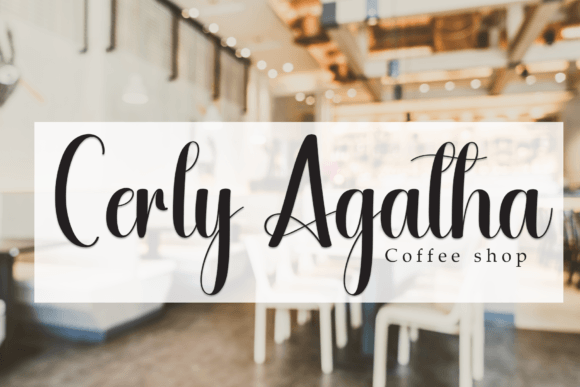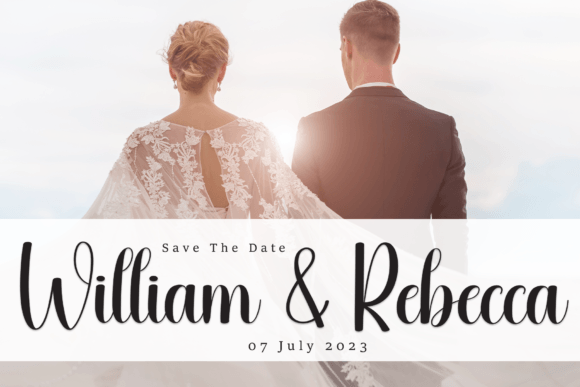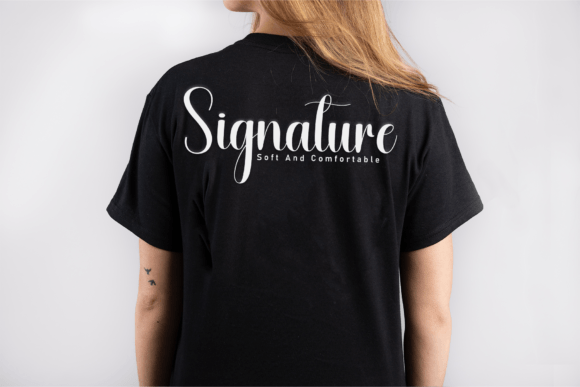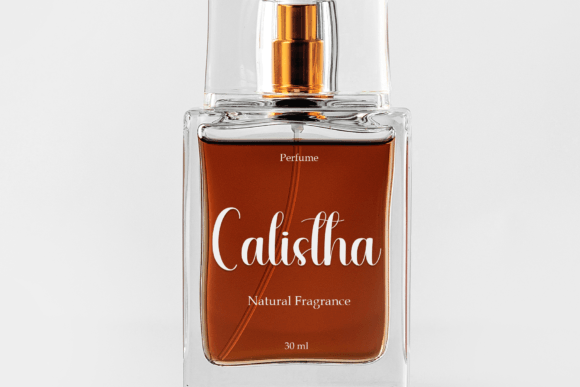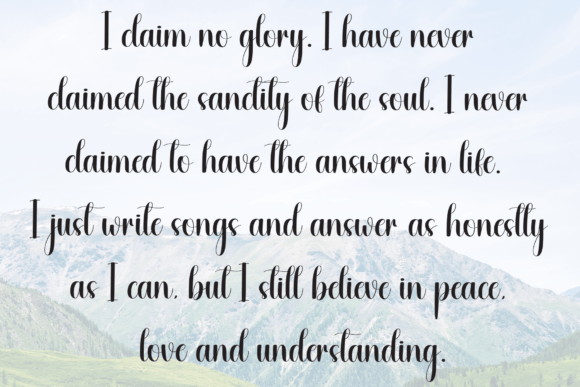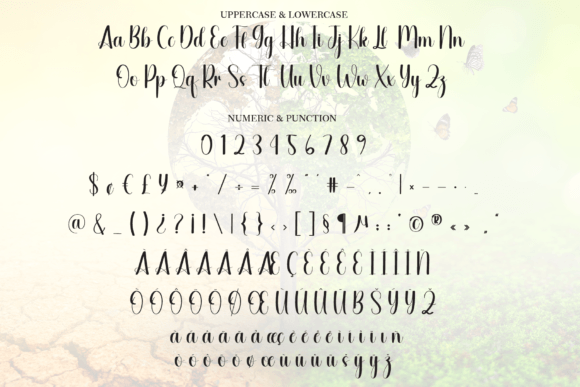
Adding a Personal Touch with Change Font
Have you ever stared at a blank sheet of paper, feeling stuck and uninspired? That’s where I was when I discovered Change Font. The moment I saw its sweet and friendly handwritten script, I knew I had to use it for my sister’s wedding invitations. The result was a beautiful, one-of-a-kind design that captured the essence of their special day.
Change Font is more than just a pretty face – it’s a versatile tool for designers looking to add a personal touch to their projects. With its fresh and casual feel, it’s perfect for writing cards, invitations, or any other design that needs a lovely touch. Whether you’re a seasoned pro or a DIY enthusiast, Change Font is a valuable addition to your design arsenal.